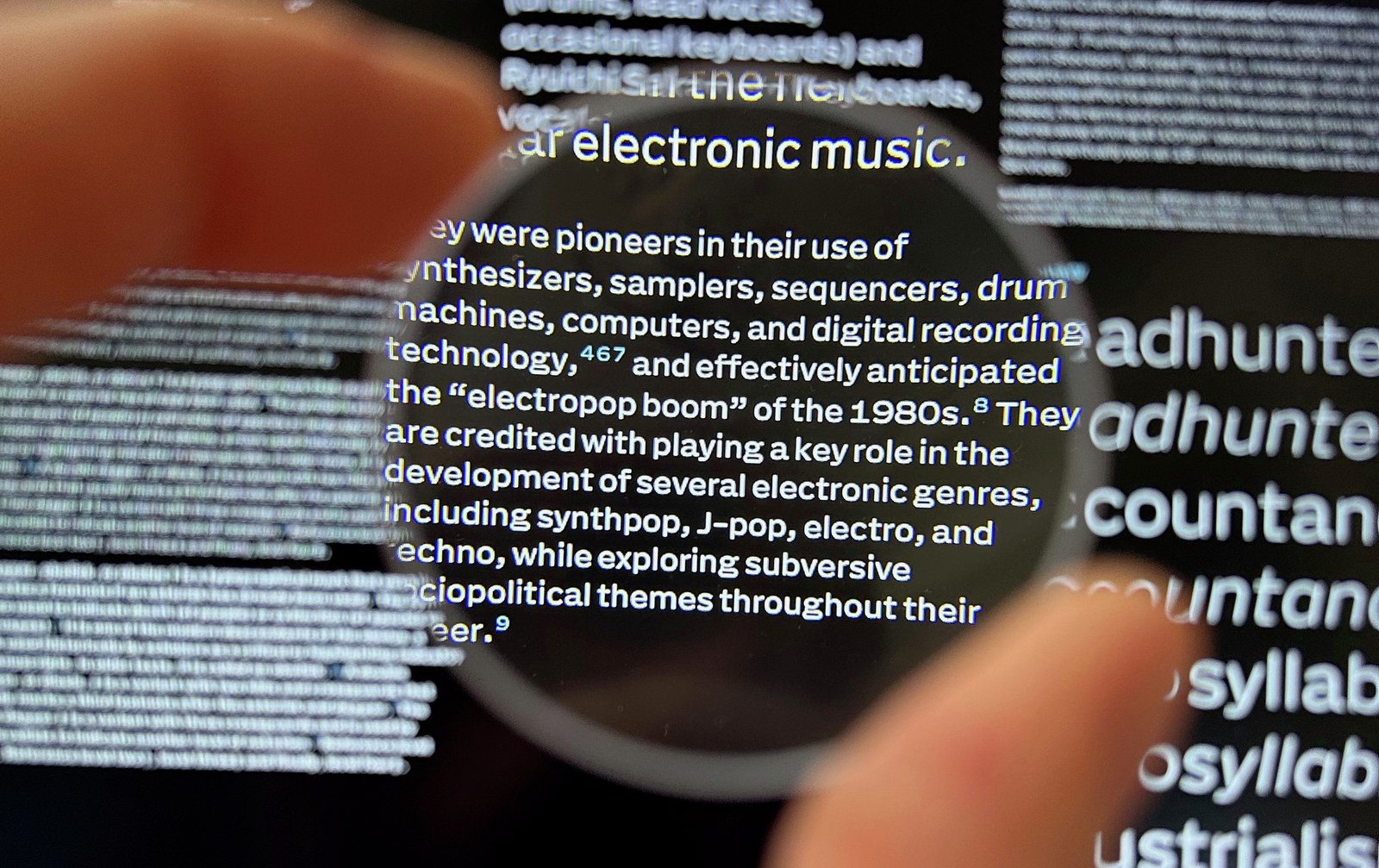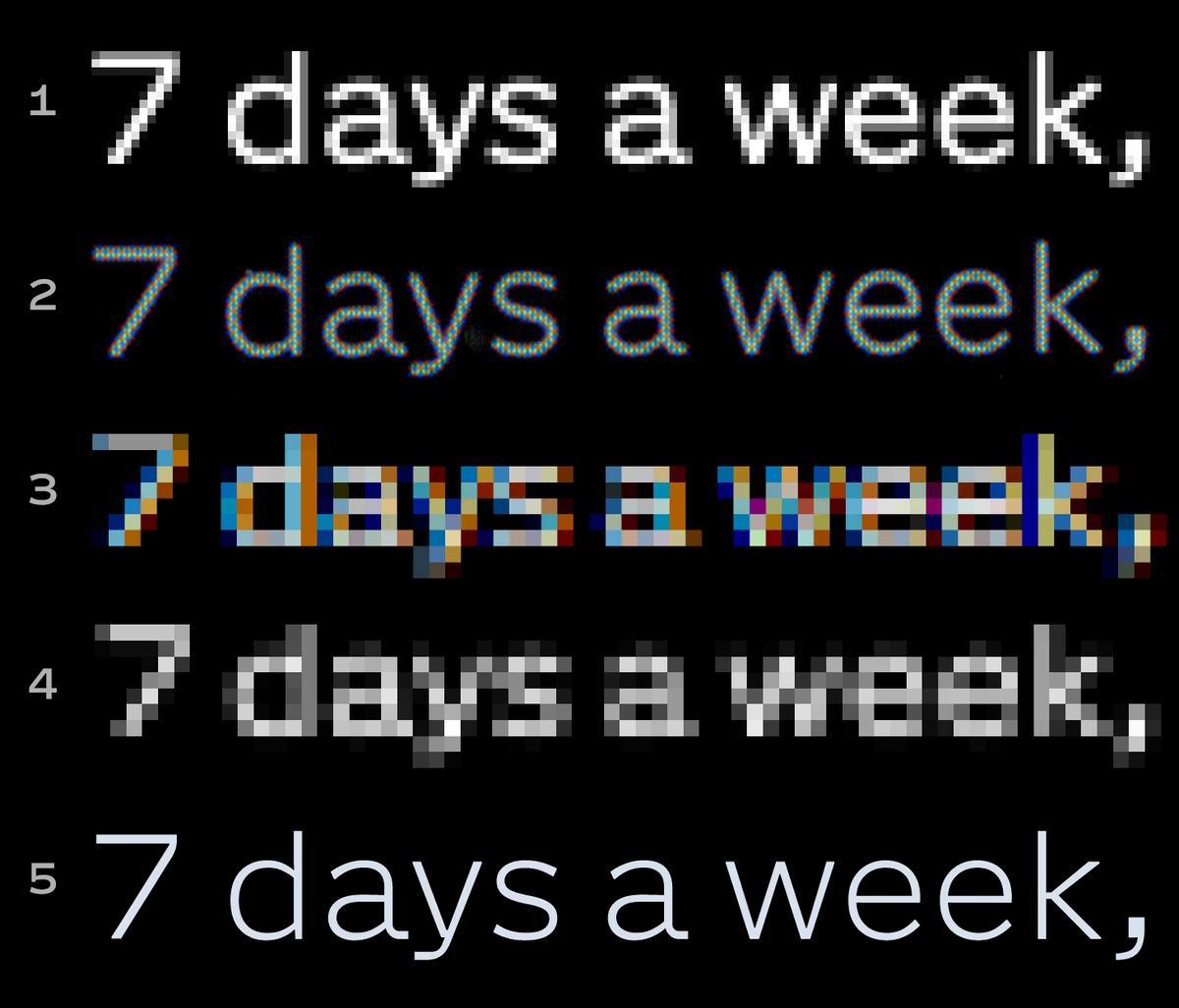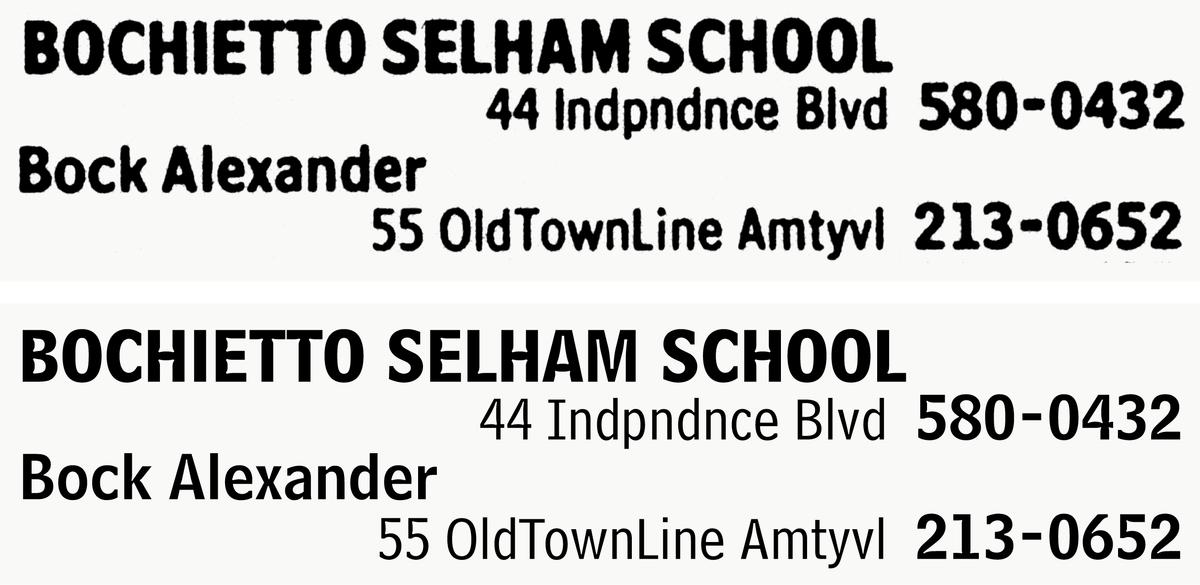
Van Blokland perhaps too modestly calls Action Grotesque ‘a bit boring’—but this is not a boring typeface, even if it excels at typography that strives not to call attention to itself. It carries essential information with clarity and composure. The boldness of its design decisions is most apparent at large sizes, where forms once engineered for function reveal a refreshing character.
A tool for microtypography, certainly—but equally compelling when scaled up.
(Typography 4, 1937)